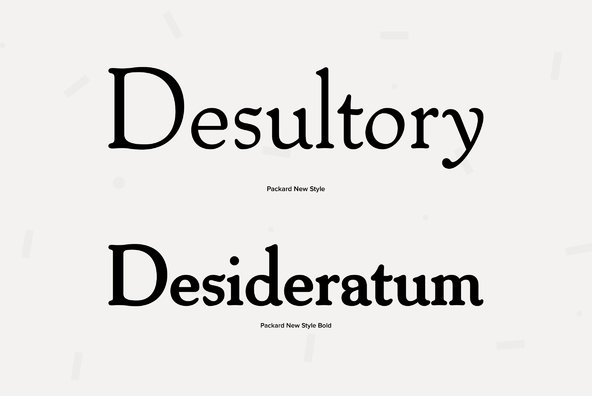
Packard
Designed by Steve Jackaman & Ashley Muir. Packard Old Style is based on lettering drawn by Oswald Cooper for the Packard Motor Company (ATF 1913). The bold weight is credited to Morris Fuller Benton (ATF 1916), but it is highly probable that Benton did the adaptation for both weights. Packard Old Style Pro contains all the high-end features expected in a quality OpenType Pro font.